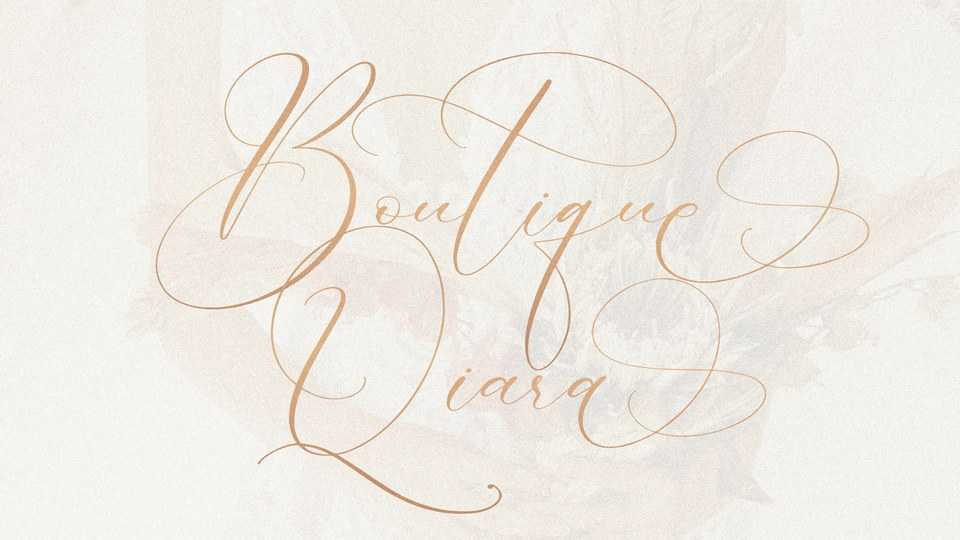
Download Boutique Qiara font, a premium calligraphy font with an elegant and charming appearance. Boutique Qiara font is best for wedding design, but also great for feminine branding, cards, letters and all other luxury projects that need a romantic look.
Designer: Integritype Studio